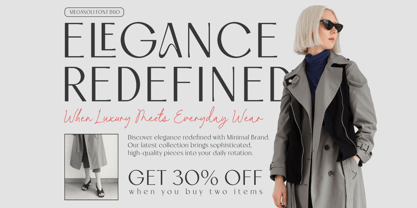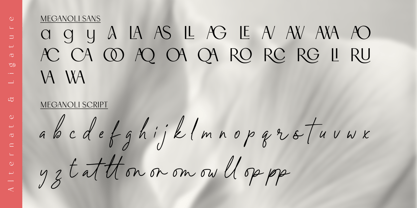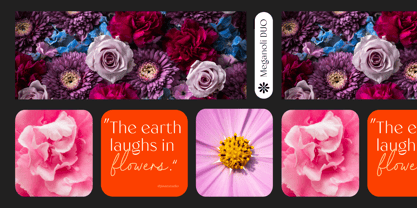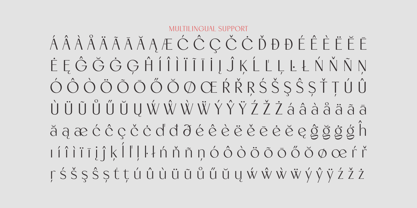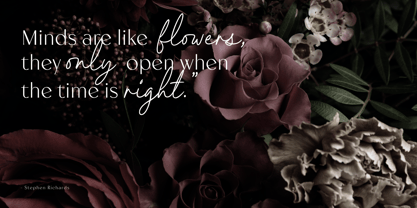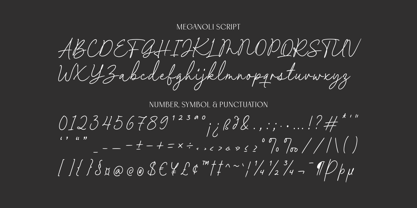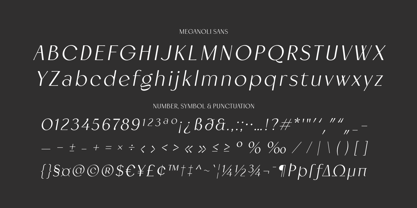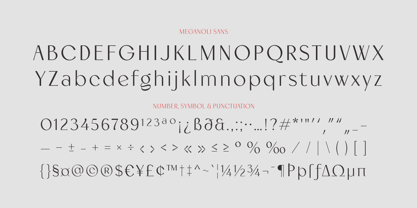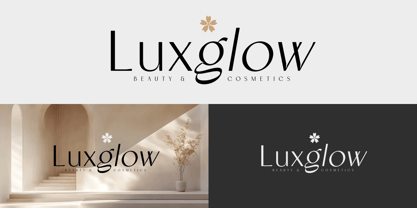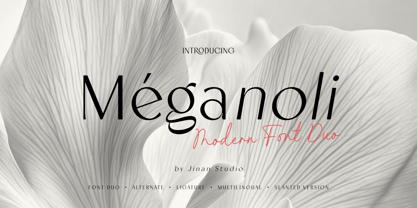
Meganoli
by Jinan Studio
Introducing Méganoli, a refined and contemporary font duo that effortlessly blends sophistication with style. Featuring a clean and elegant sans-serif paired with a flowing, modern script, Méganoli is designed to elevate your creative projects with a touch of timeless luxury.
Perfectly suited for branding, editorial design, fashion, packaging, and wedding stationery, this font duo offers seamless harmony between structure and grace. The sans-serif brings clarity and confidence, while the script adds a personal and artistic touch.
What’s included:
• Elegant Sans Serif & Modern Script
• Alternate Characters & Ligatures
• Multilingual Support
• Slanted/Italic Versions for Versatility
Whether you're crafting a luxurious logo, a chic invitation, or a high-end brand identity, Méganoli ensures your message is always delivered with elegance and flair.
Features
• A set of uppercase and lowercase glyphs
• Number, symbol, and punctuation
• Multilingual Support
• Alternates, ligatures, and swashes